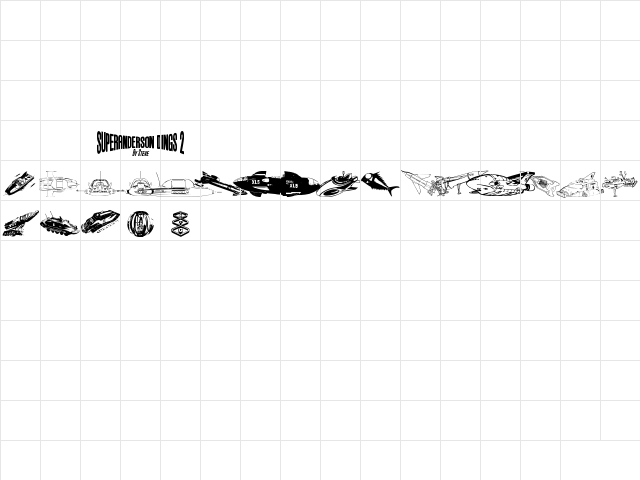
Anderson Dings 2 Regular
Design Context for Anderson Dings 2
Anderson Dings 2 is a composed and adaptable typeface that performs quietly and consistently across a wide range of design contexts.